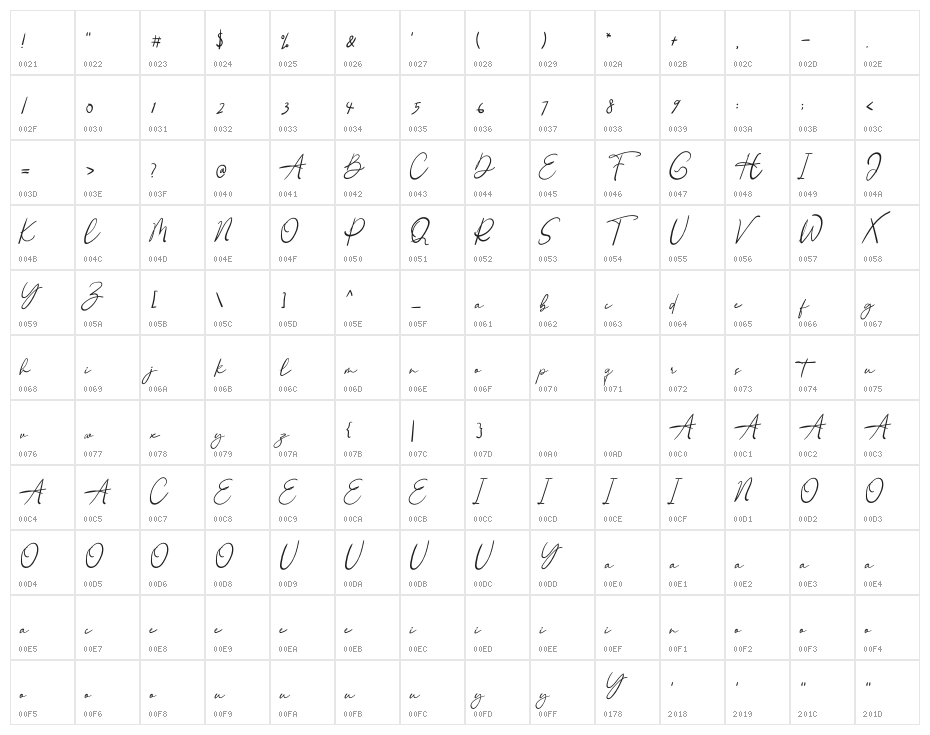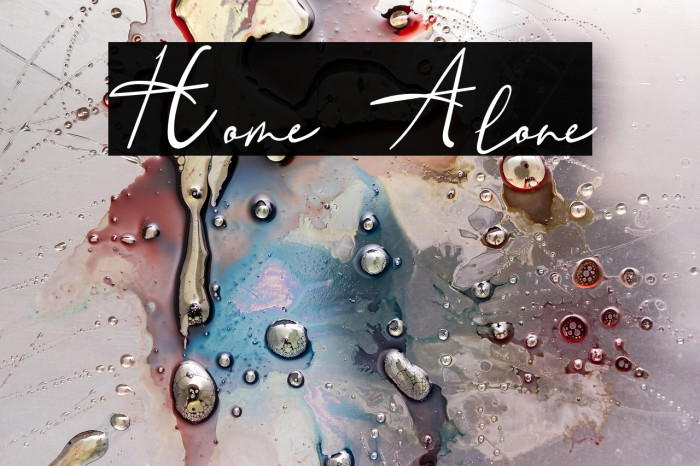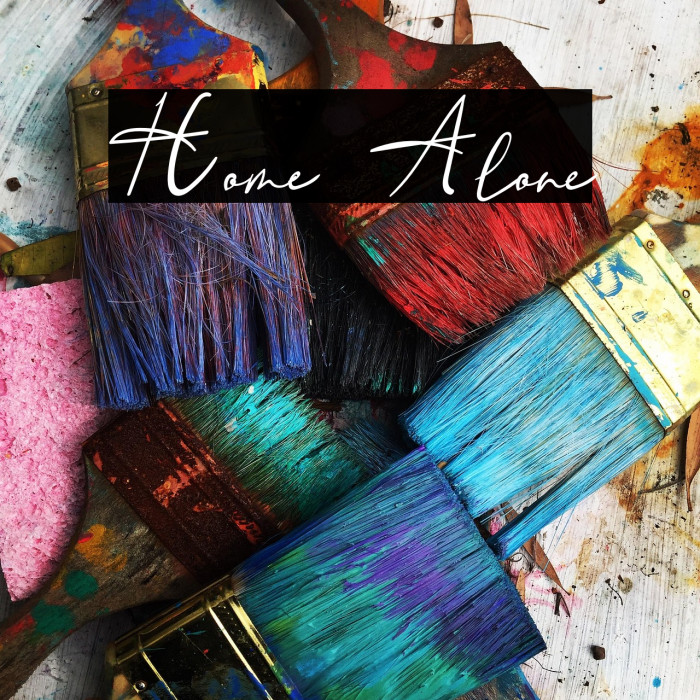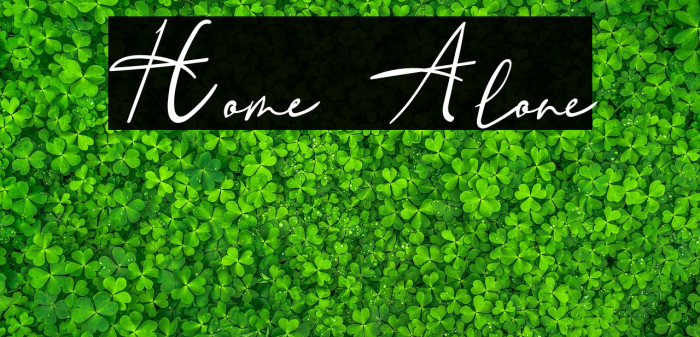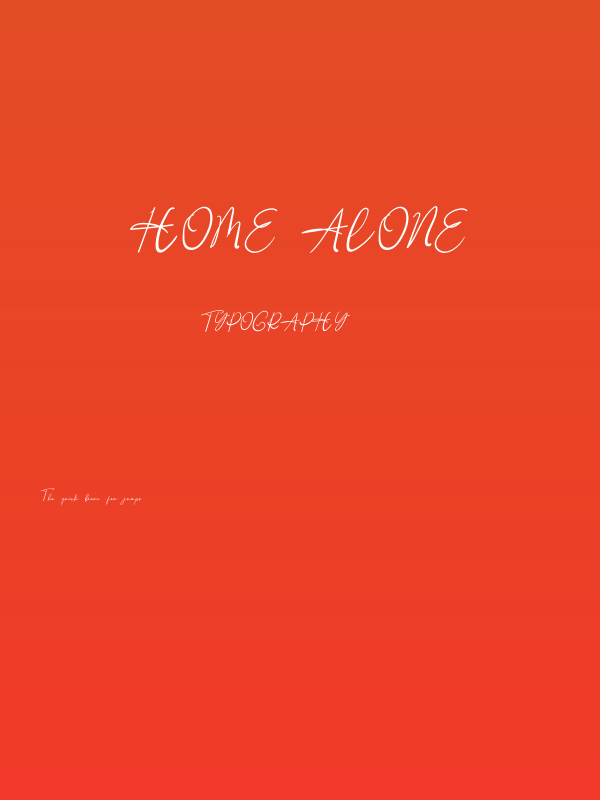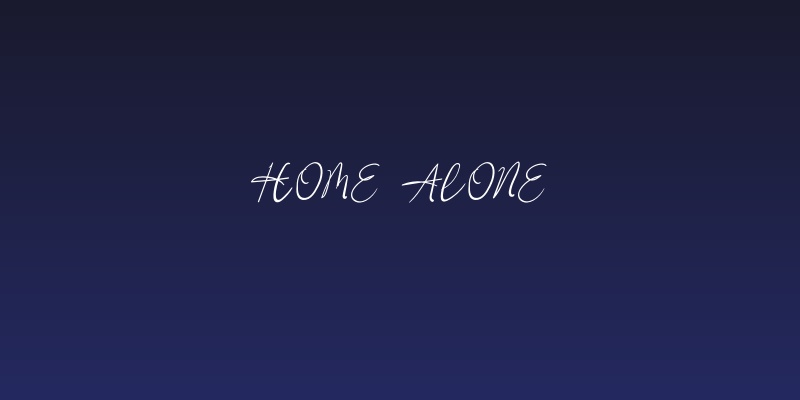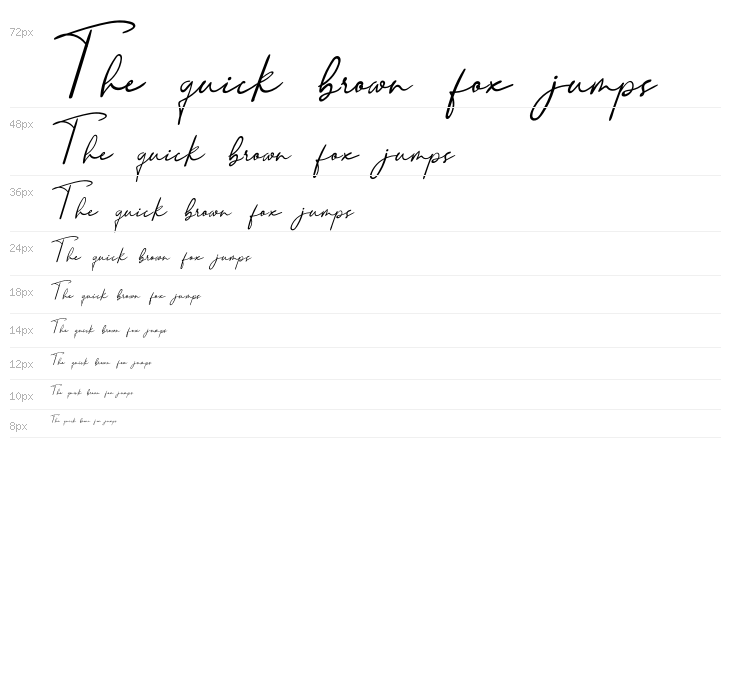
Home Alone Font
Home Alone Description
This font exudes a lively and dynamic character with its flowing, cursive style. The letters are elegantly connected, giving it a handwritten appearance that is both sophisticated and approachable. The uppercase letters are slightly more elaborate, with sweeping ascenders and descenders that add a touch of flair. The lowercase letters maintain a consistent rhythm, enhancing readability while preserving the font's artistic charm. Numbers and special characters are crafted with the same attention to detail, ensuring a cohesive look across all text elements. This font is perfect for projects that require a personal touch, such as invitations, greeting cards, or branding materials. Its versatility allows it to be used in both formal and informal contexts, making it a valuable addition to any designer's toolkit.
| Proposed Projects | Invitations, greeting cards, branding materials, personal notes, and decorative signage. |